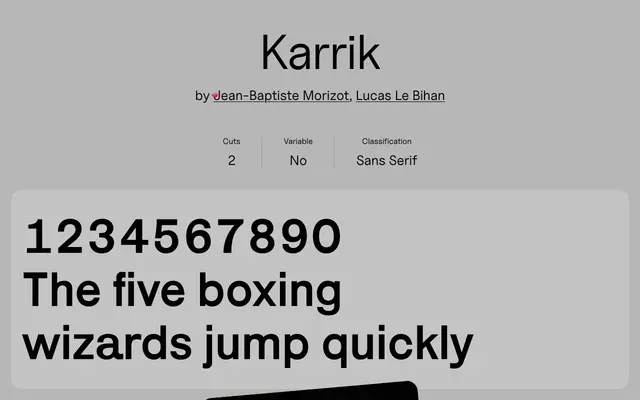
Karrik
A two-cut grotesque by Jean-Baptiste Morizot and Lucas Le Bihan, released under the SIL Open Font License for free commercial and personal use.
An irregular grotesque with a deliberately rough character, available in Regular and Italic. Designed by Jean-Baptiste Morizot and Lucas Le Bihan, it carries an expressive, hand-influenced quality that sets it apart from more neutral grotesques. Released under the SIL Open Font License, allowing commercial use, modification and redistribution.
Listed under Sans Serif classification; Karrik is an irregular grotesque with intentional roughness and low contrast, characteristic of expressive grotesque design.